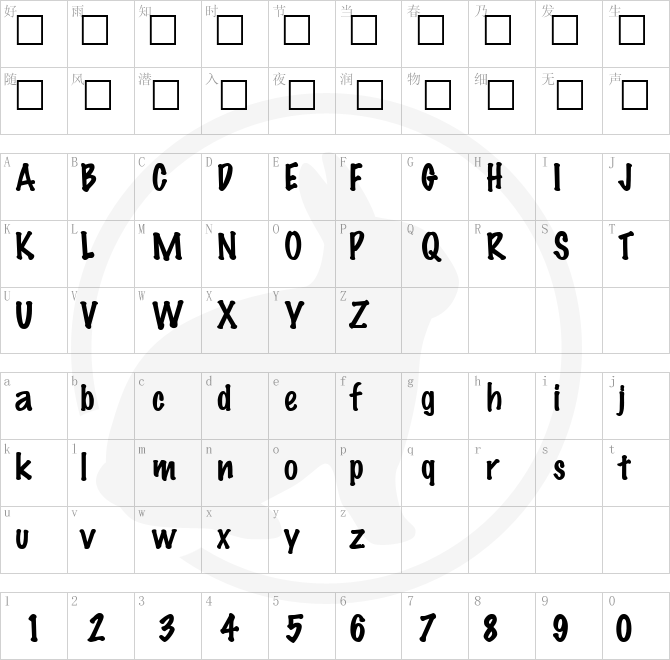
- Font Name:QTMagicMarker
QTMagicMarker-Regular.ttf is a very beautiful artistic font, QTMagicMarker-Regular.ttf is widely used in the design and printing of various books and pictures,QTMagicMarker-Regular.ttf has a strong visual impact,QTMagicMarker-Regular.ttf is a commonly used font in newspapers, magazines and books, and is used in posters, e-commerce Poster design, store design, logo design, font design and other fields.QTMagicMarker-Regular.